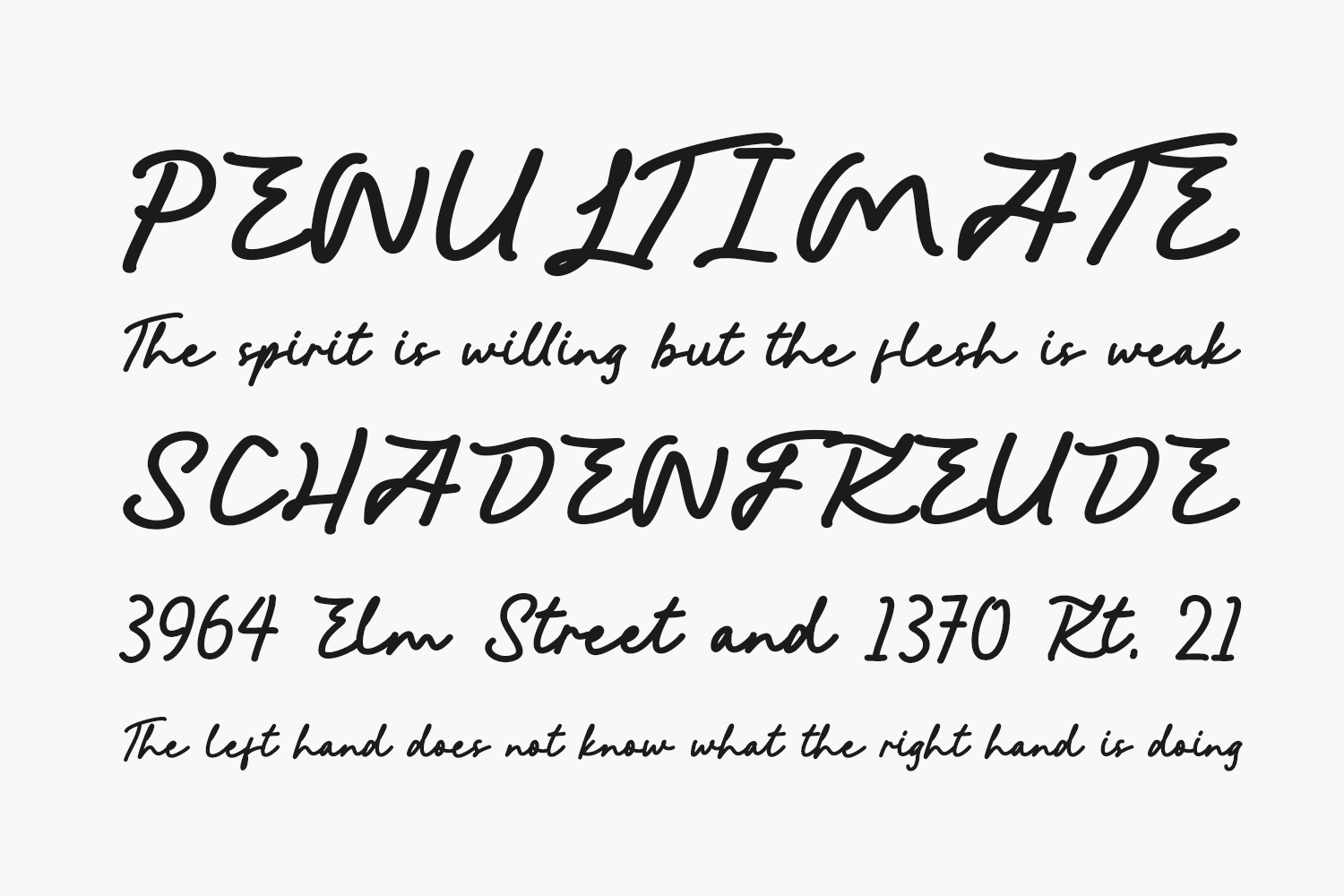
Kintanya Free Font is a unique and elegant handwritten font. It looks beautiful on a variety of designs requiring a personalized style, such as wedding invitations, thank you cards, logos, and so on. Kintanya Free Font was designed by GFR Creative and is free for personal use only. Please purchase the full version for commercial use.